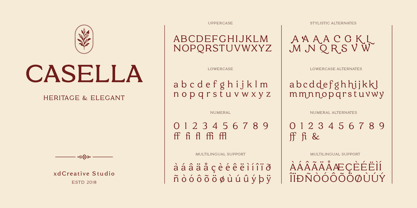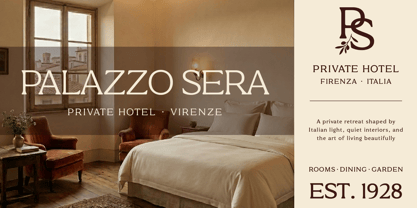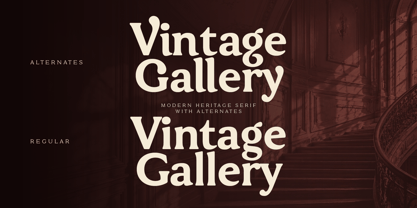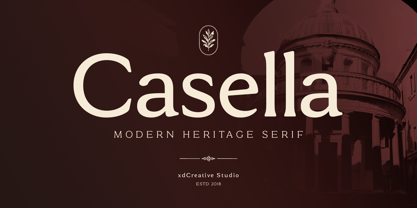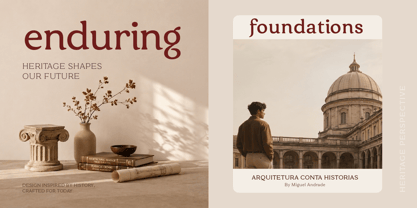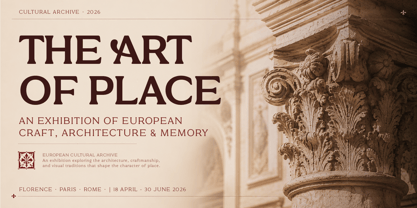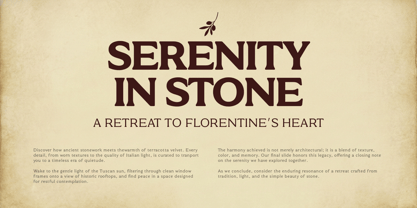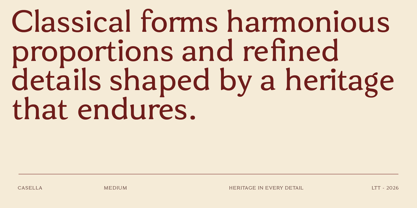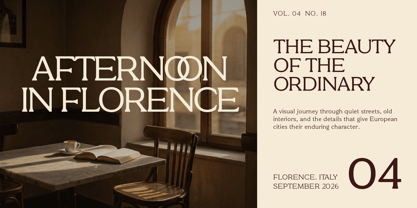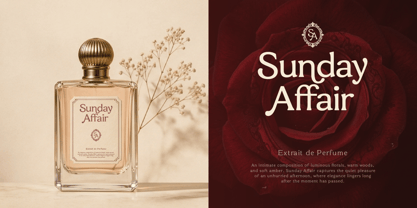
Casella
by XdCreative
Casella – Modern Heritage Serif
Casella is a refined serif inspired by the beauty of classic typography, with a fresh and expressive character of its own. Its graceful curves, confident strokes, and distinctive details give every word a sense of presence.
Designed for branding, fashion, editorial, packaging, posters, invitations, and cultural projects, Casella works beautifully when typography becomes part of the visual identity rather than simply carrying the message.
Casella includes a carefully designed selection of stylistic alternates, uppercase and lowercase alternates, alternate numerals, ligatures, small caps, punctuation, and symbols. These OpenType features give you the freedom to create a clean and refined wordmark or add a more expressive character when the design calls for it.
The family is available in a Roman style with a Latin Simple character set, making it focused and straightforward for a wide range of display and branding applications.